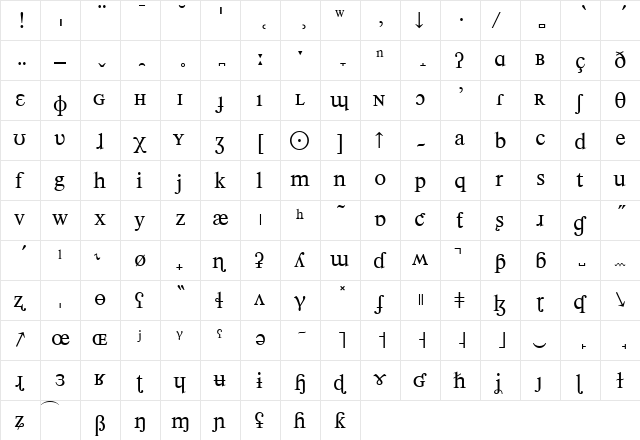
TimelessPhoStaTLig Regular Font Preview
TimelessPhoStaTLig Regular
Design Context for TimelessPhoStaTLig Typeface
TimelessPhoStaTLig takes a measured approach to typography — its balanced proportions and neutral character make it a reliable workhorse for both digital and print work.